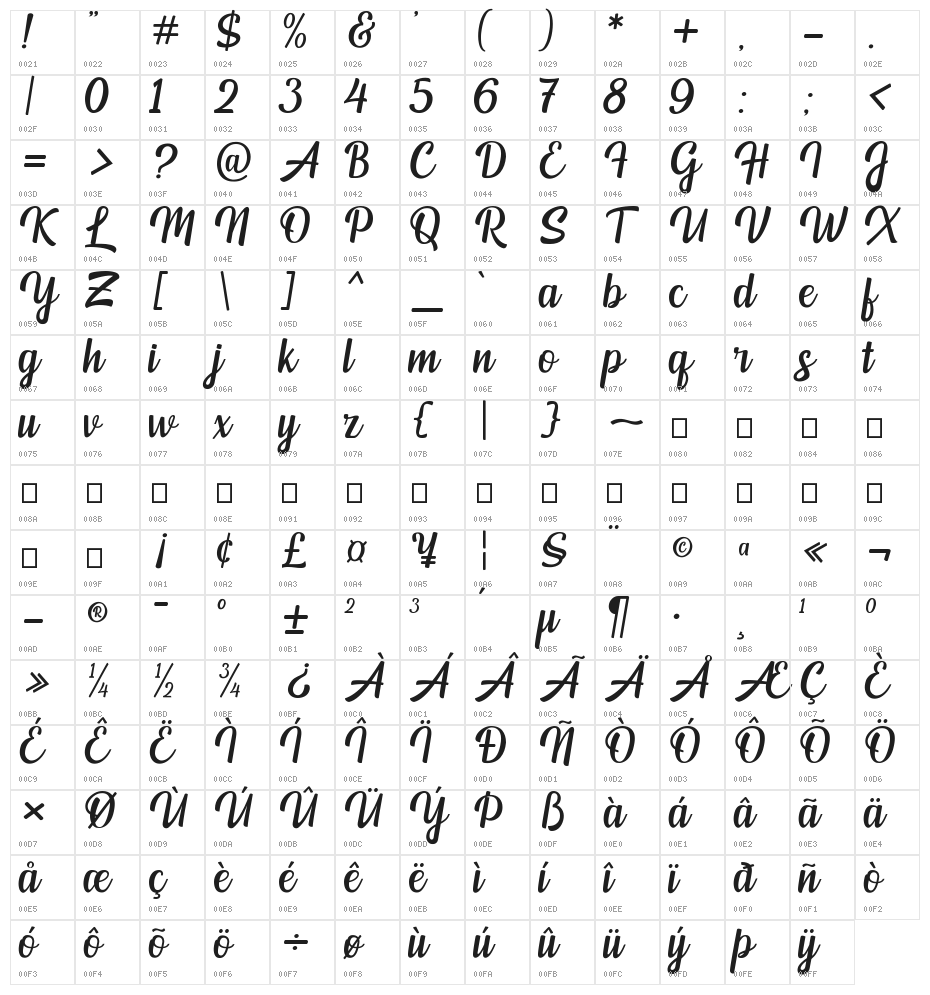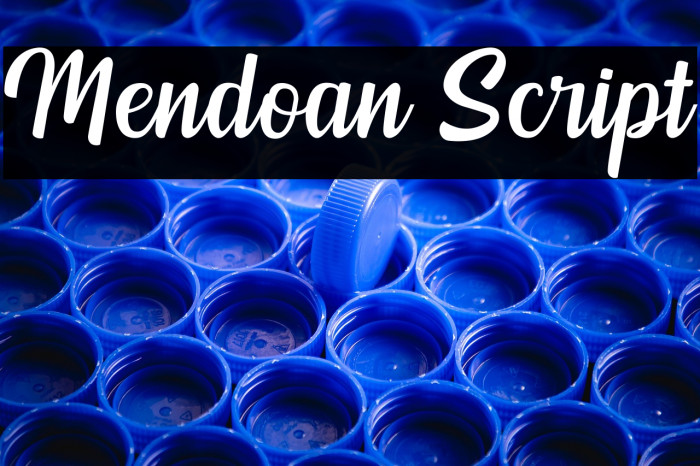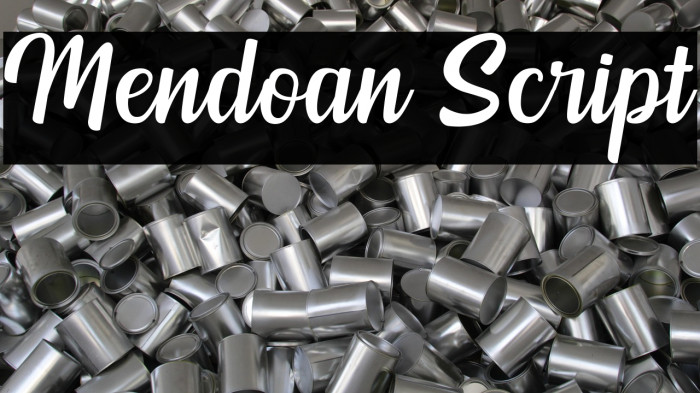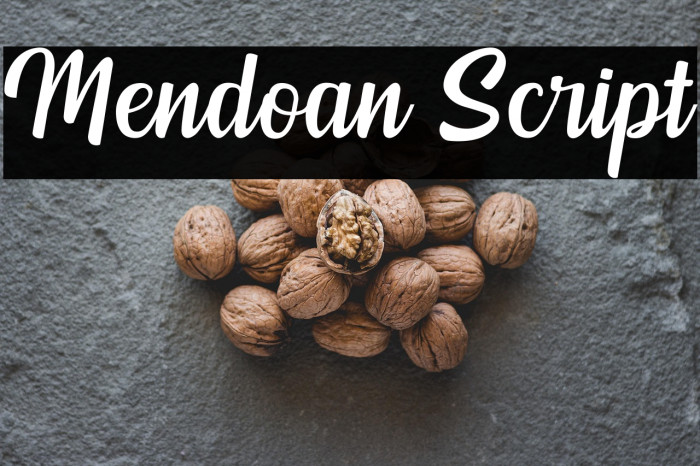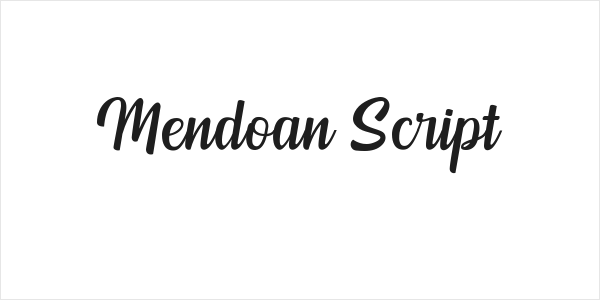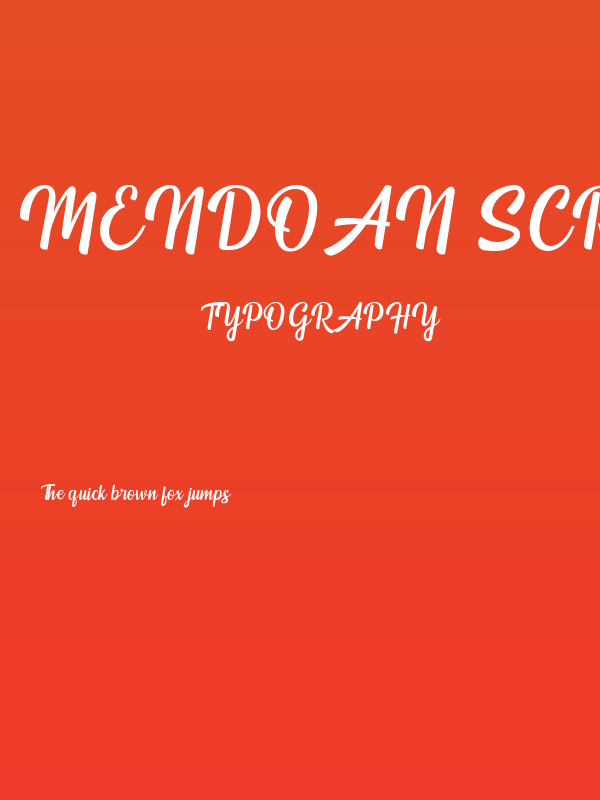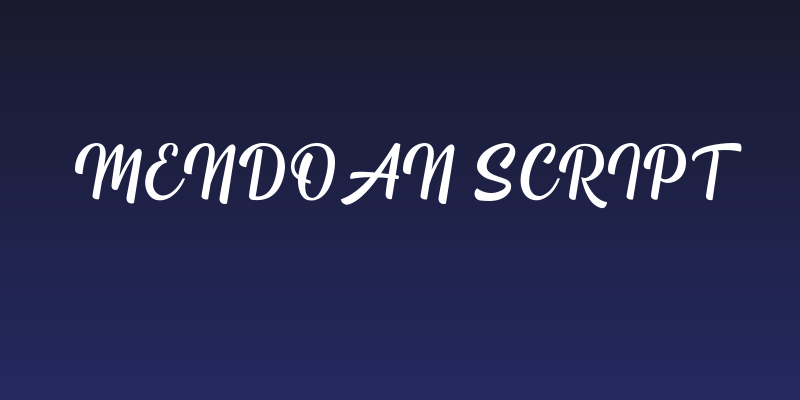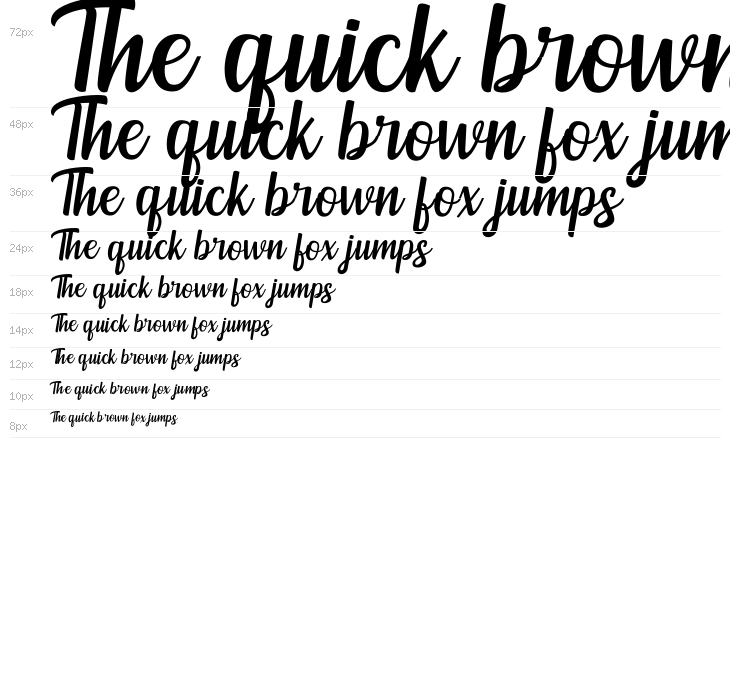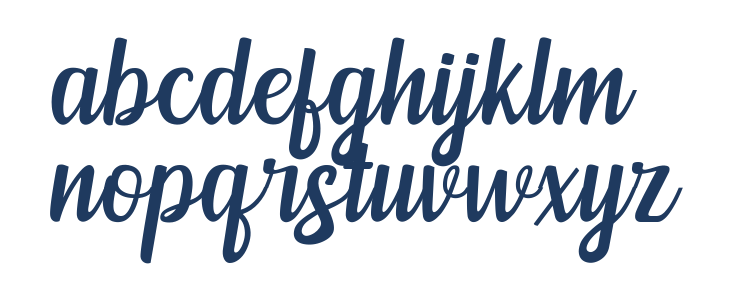
Mendoan Script Font
Mendoan Script Description
This font exudes a lively and dynamic script style, characterized by its fluid and connected letterforms. The uppercase letters are bold and slightly slanted, giving a sense of movement and elegance. The lowercase letters maintain a consistent flow, with smooth curves and rounded edges that enhance readability. The numerals are clear and distinct, matching the overall script style with a touch of flair. Special characters are well-integrated, maintaining the font's cohesive look. This font is ideal for projects that require a personal and artistic touch, such as invitations, greeting cards, or branding materials.